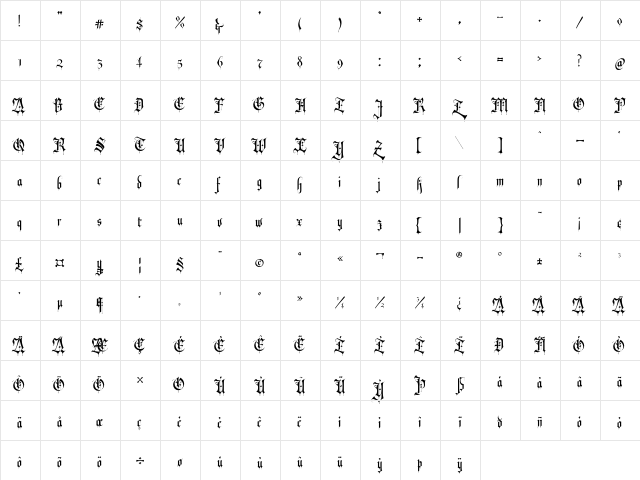
Revolver Blackletter Regular
| Foundry | Eduardo Aire Torres |
| Designer | Eduardo Aire Torres |
Design Context for Revolver Blackletter Typeface
Revolver Blackletter channels the dramatic heritage of Fraktur and Gothic scripts, bringing a sense of historical gravitas to any design.
Well-suited to band logos, craft beer branding, tattoo lettering, and heritage-themed identities.
Font Pairing: Pair with a clean neutral sans-serif for body copy to let Revolver Blackletter's character lead without overwhelming the composition.
Pro Tip: Use Revolver Blackletter sparingly at large sizes. Even a single word set in blackletter can define the visual register of an entire design.